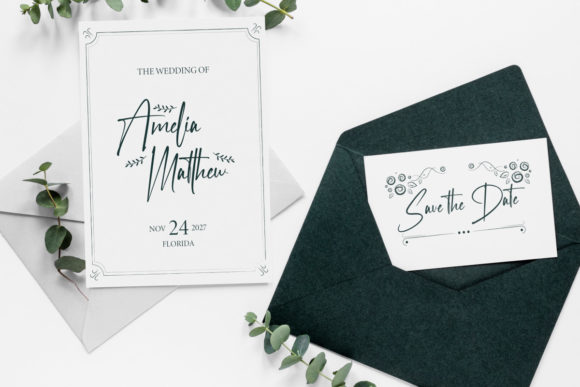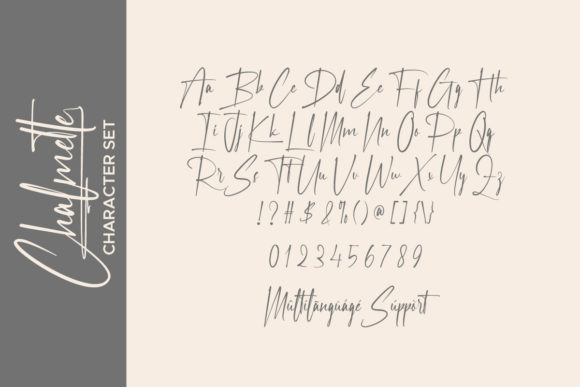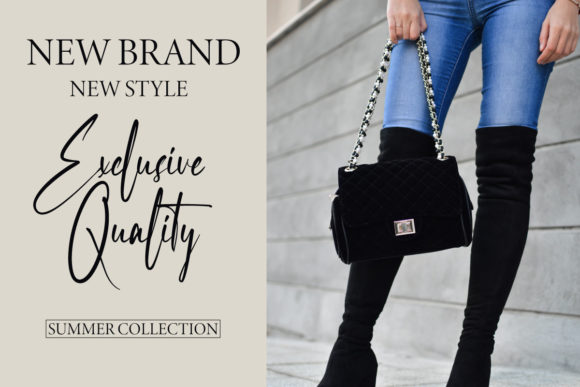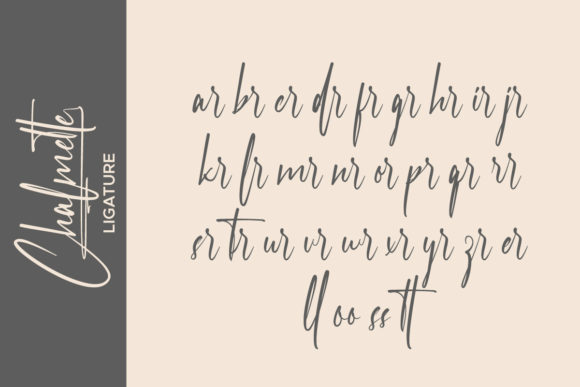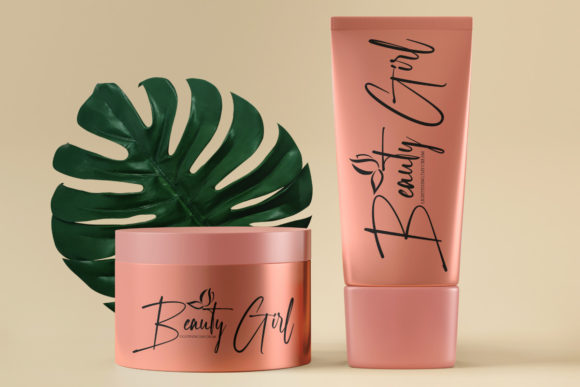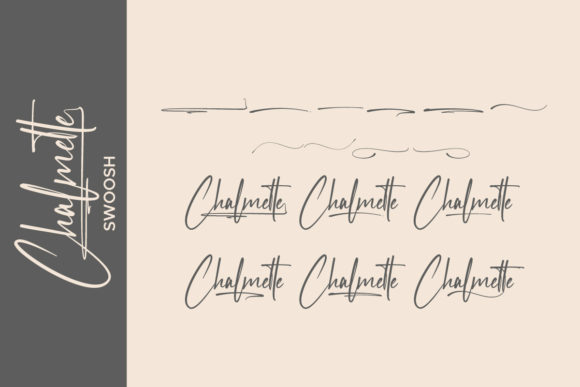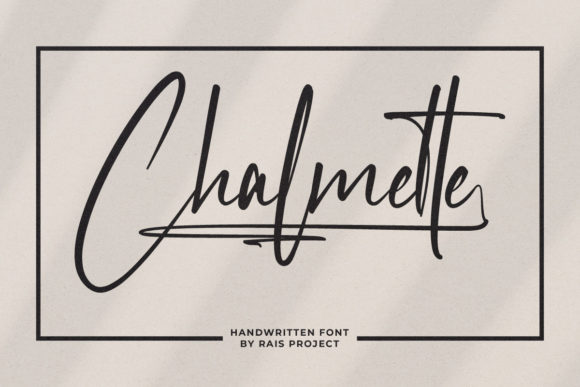
Introducing Chalmette Font: Elevate Your Designs with Elegance and Sophistication
In the world of typography, a beautiful font can make all the difference in elevating your design to the next level. If you’re a designer, crafty DIY enthusiast, or simply someone who appreciates the art of beautiful writing, then you’re in for a treat. Say hello to Chalmette Font, a lovely script font that is sure to add a touch of elegance and sophistication to any project.
What is Chalmette Font?
Chalmette Font is a stunning script font that boasts stylish and calligraphic characters, perfect for adding a personal touch to your designs. This gorgeous font is designed to be versatile and can be used for a wide range of projects, including weddings, promotions, events, branding, advertising, magazines, shopping, signage, invitations, stationery, social media posts, and so much more.
Key Features of Chalmette Font
• Stylish and Calligraphic Characters: Chalmette Font features beautiful, flowing script characters that are sure to add a touch of elegance to your designs.
• PUA Encoded: This font is PUA (Private Use Area) encoded, which means you can access all of the glyphs and swashes with ease, giving you complete creative control over your designs.
• Versatile: Chalmette Font is perfect for a wide range of projects, from weddings and events to branding and advertising.
Why Choose Chalmette Font?
With so many fonts available, why choose Chalmette Font? Here are just a few reasons why this font stands out from the rest:
• Unique and Eye-Catching: Chalmette Font is a one-of-a-kind font that is sure to grab attention and make your designs stand out.
• Elegant and Sophisticated: This font exudes elegance and sophistication, making it perfect for high-end designs and projects.
• Easy to Use: With its PUA encoding, Chalmette Font is easy to use and allows you to access all of the glyphs and swashes with ease.
How to Use Chalmette Font
Chalmette Font is perfect for a wide range of design projects, including:
• Wedding Designs: Use Chalmette Font to create beautiful wedding invitations, stationery, and signage.
• Branding and Advertising: This font is perfect for creating elegant and sophisticated branding and advertising materials.
• Events and Promotions: Use Chalmette Font to create eye-catching event promotions, flyers, and posters.
• Social Media Posts: Add a touch of elegance to your social media posts with Chalmette Font.
Tips and Tricks for Getting the Most Out of Chalmette Font
Here are a few tips and tricks for getting the most out of Chalmette Font:
• Experiment with Different Sizes and Colors: Don’t be afraid to experiment with different sizes and colors to find the perfect combination for your design.
• Use the Swashes and Glyphs: Take advantage of the PUA encoding and use the swashes and glyphs to add a personal touch to your designs.
• Pair it with Other Fonts: Chalmette Font pairs well with other fonts, so don’t be afraid to experiment with different font combinations.
In conclusion, Chalmette Font is a beautiful and versatile script font that is perfect for adding a touch of elegance and sophistication to any design project. With its stylish and calligraphic characters, PUA encoding, and ease of use, this font is a must-have for designers, crafty DIY enthusiasts, and anyone looking to elevate their designs to the next level. So why wait? Get Chalmette Font today and start creating stunning designs that will leave a lasting impression!